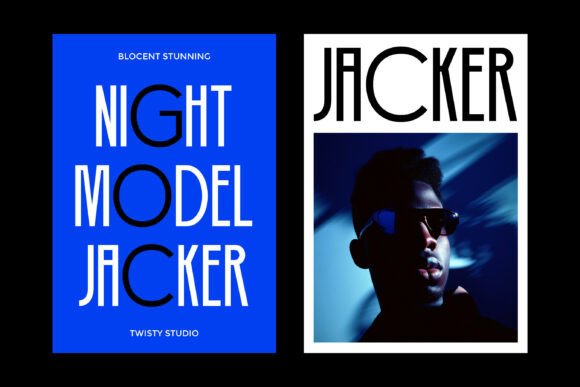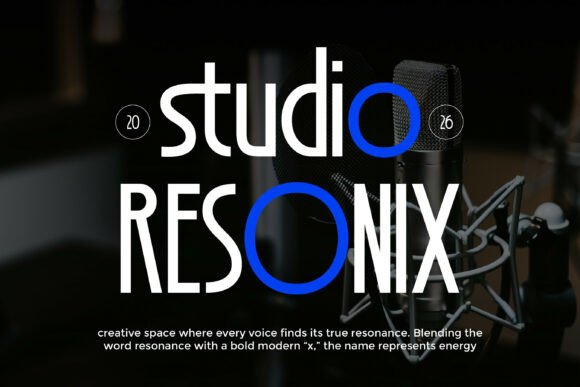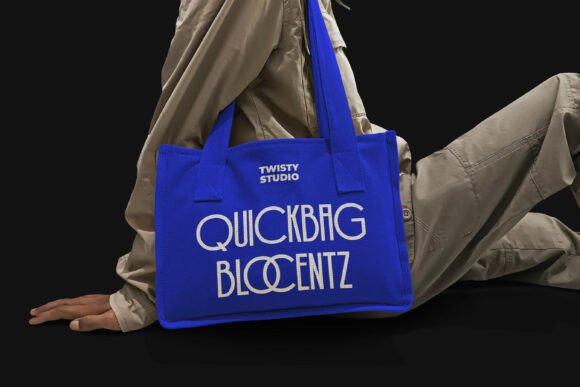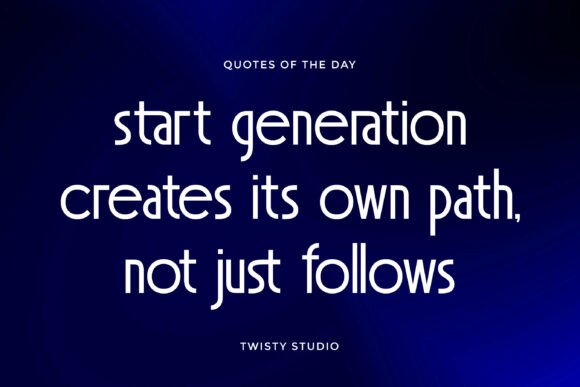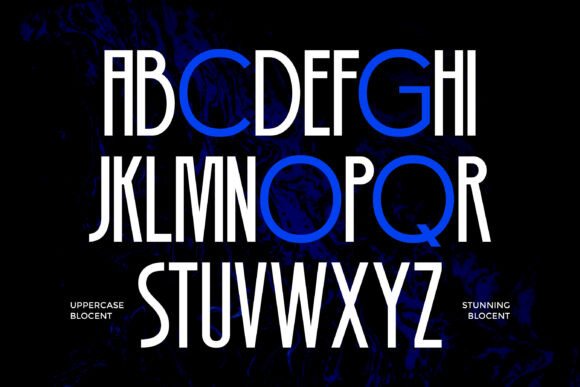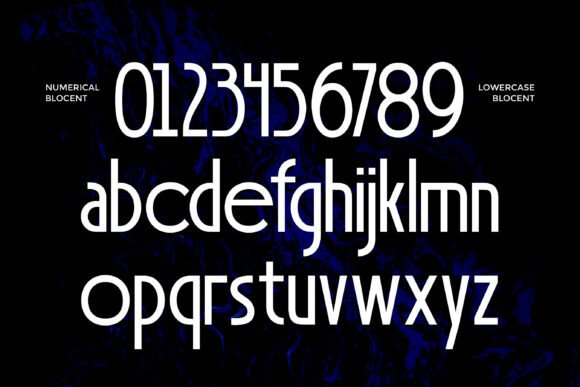
Introducing Blocent Font: The Ultimate Modern Sans Serif for Bold Designs
In the world of typography, fonts play a crucial role in conveying messages, expressing emotions, and creating visual identities. For designers and crafters, finding the perfect font that embodies their creative vision can be a daunting task. However, if you’re looking for a font that exudes modernity, boldness, and sophistication, look no further than Blocent Font. In this article, we’ll dive into the world of Blocent, exploring its features, benefits, and uses, and why it’s becoming a go-to choice for designers and crafters alike.
What is Blocent Font?
Blocent is a condensed modern sans serif font designed to deliver a clean, bold, and visually striking typographic style. With its tall letterforms, sharp lines, and balanced structure, Blocent creates a strong and contemporary appearance that stands out in any design. Whether you’re working on a branding project, a website, or a craft project, Blocent Font is the perfect choice for those who want to make a statement.
Key Features of Blocent Font
So, what makes Blocent Font so unique? Here are some of its key features:
- Condensed and Modern Design: Blocent Font boasts a sleek and condensed design that’s perfect for headlines, titles, and short texts. Its modern sans serif style ensures that your text looks fresh and up-to-date.
- Tall Letterforms: The tall letterforms of Blocent Font create a sense of elegance and sophistication, making it ideal for designs that require a touch of refinement.
- Sharp Lines and Balanced Structure: The sharp lines and balanced structure of Blocent Font ensure that your text is easy to read and visually appealing.
- Clean and Bold: Blocent Font is designed to be clean and bold, making it perfect for designs that require a strong and striking typographic style.
Benefits of Using Blocent Font
So, why should you choose Blocent Font for your next design project? Here are some benefits of using Blocent Font:
- Versatility: Blocent Font is versatile and can be used for a wide range of design projects, from branding and advertising to web design and crafting.
- Legibility: The clean and bold design of Blocent Font ensures that your text is easy to read, even at small sizes.
- Uniqueness: Blocent Font is a unique and distinctive font that will set your design apart from the rest.
- Easy to Pair: Blocent Font is easy to pair with other fonts, making it a great choice for designs that require a combination of fonts.
Use Cases for Blocent Font
Blocent Font is a versatile font that can be used for a wide range of design projects. Here are some use cases for Blocent Font:
- Branding and Logo Design: Blocent Font is perfect for creating bold and striking logos that make a statement.
- Headlines and Titles: The condensed design of Blocent Font makes it ideal for headlines and titles that require a strong and attention-grabbing typographic style.
- Web Design: Blocent Font is a great choice for web design, particularly for headings, titles, and short texts.
- Crafting and DIY Projects: Blocent Font can add a touch of modernity and sophistication to your crafting and DIY projects, such as signs, posters, and cards.
In conclusion, Blocent Font is a modern sans serif font that offers a clean, bold, and visually striking typographic style. With its tall letterforms, sharp lines, and balanced structure, Blocent Font is perfect for designers and crafters who want to create strong and contemporary designs. Whether you’re working on a branding project, a website, or a craft project, Blocent Font is a great choice for those who want to make a statement. So, why not give Blocent Font a try and experience the power of bold and modern typography?